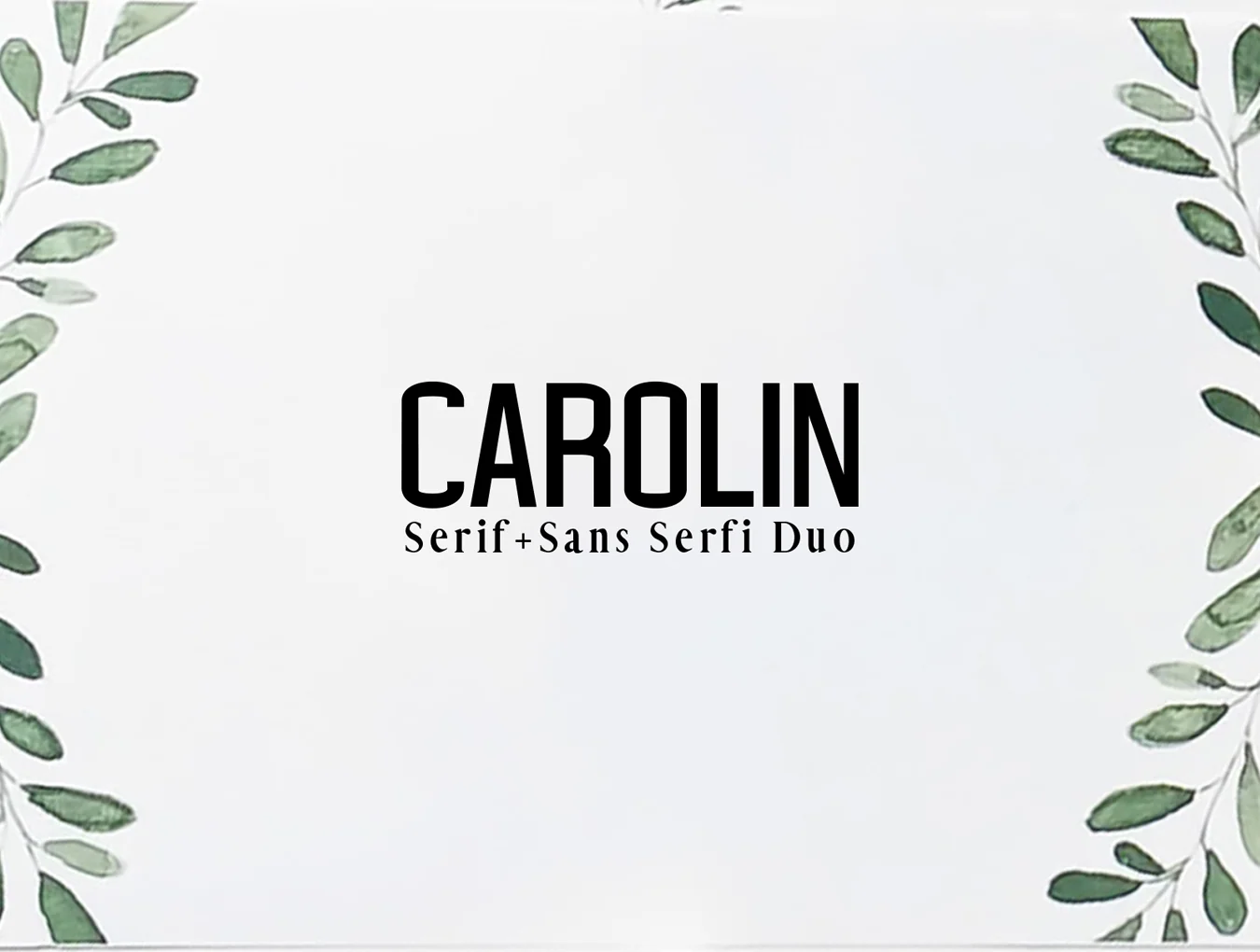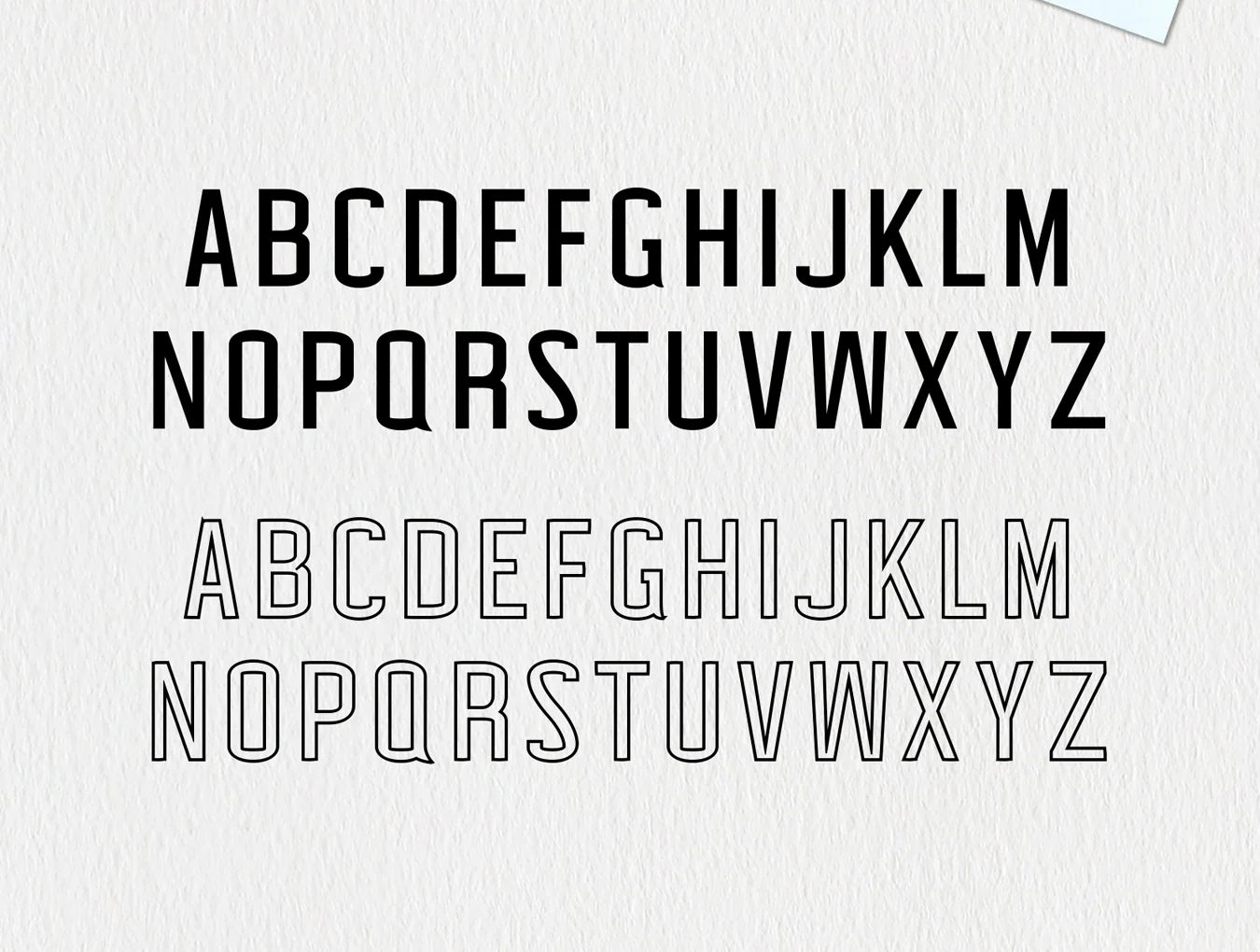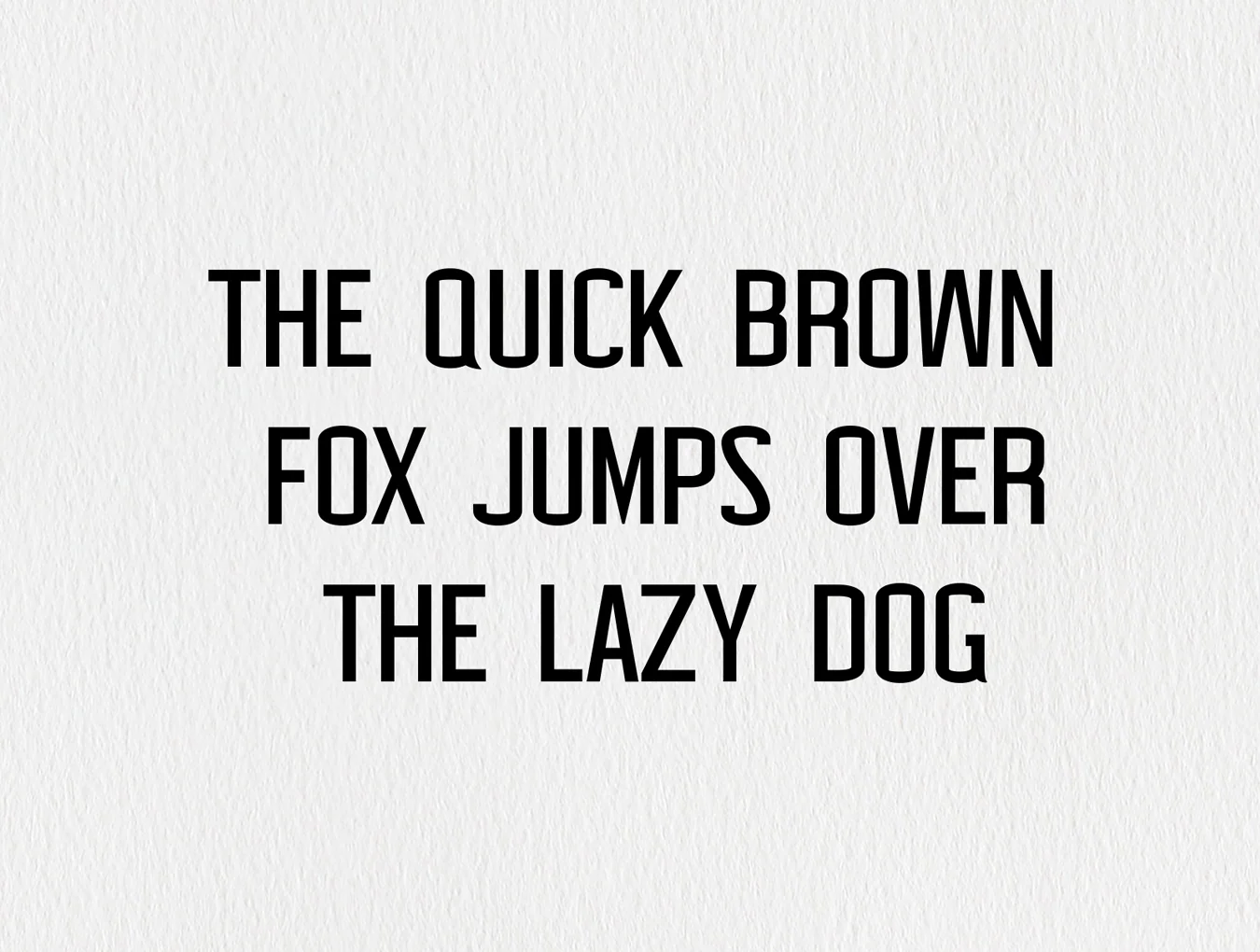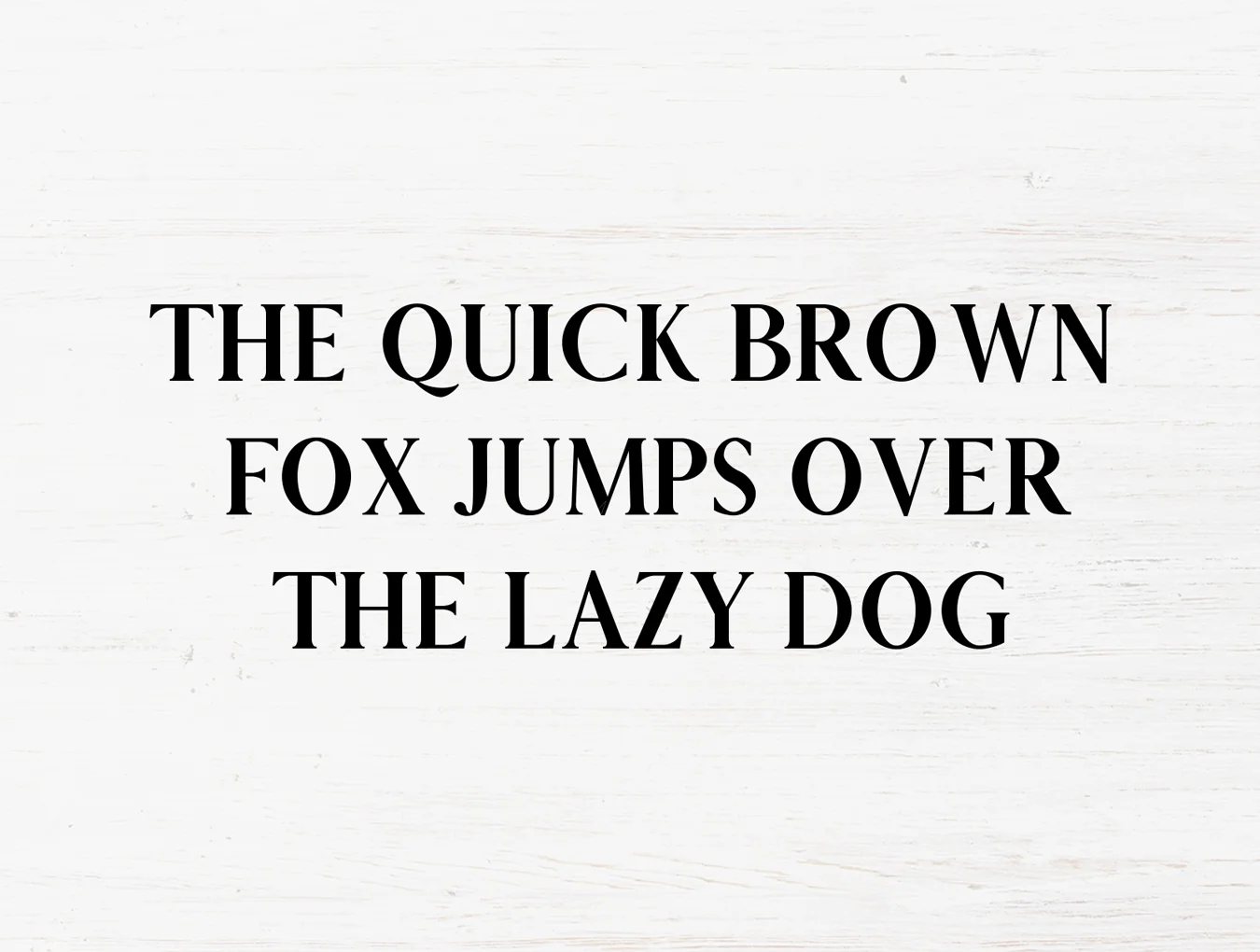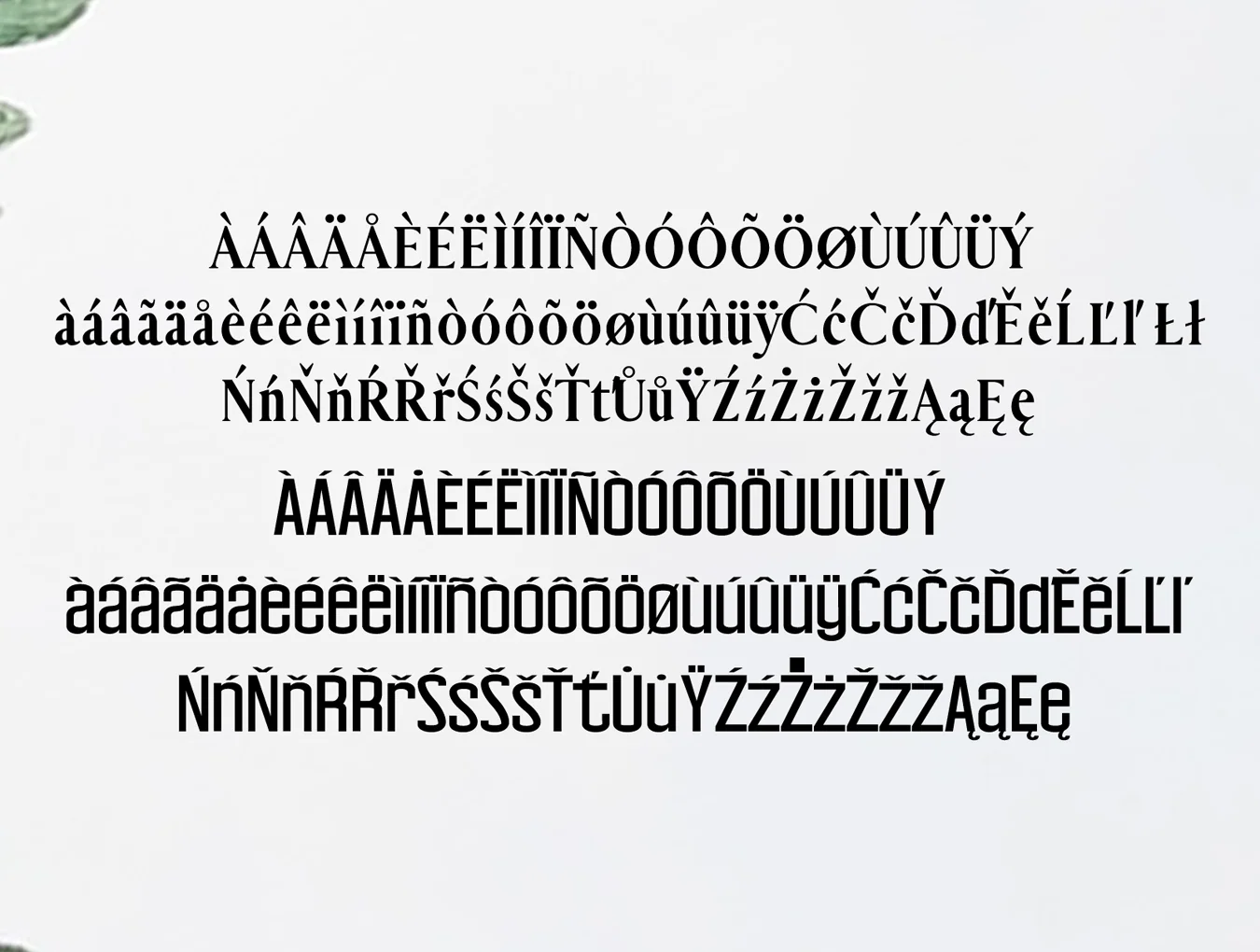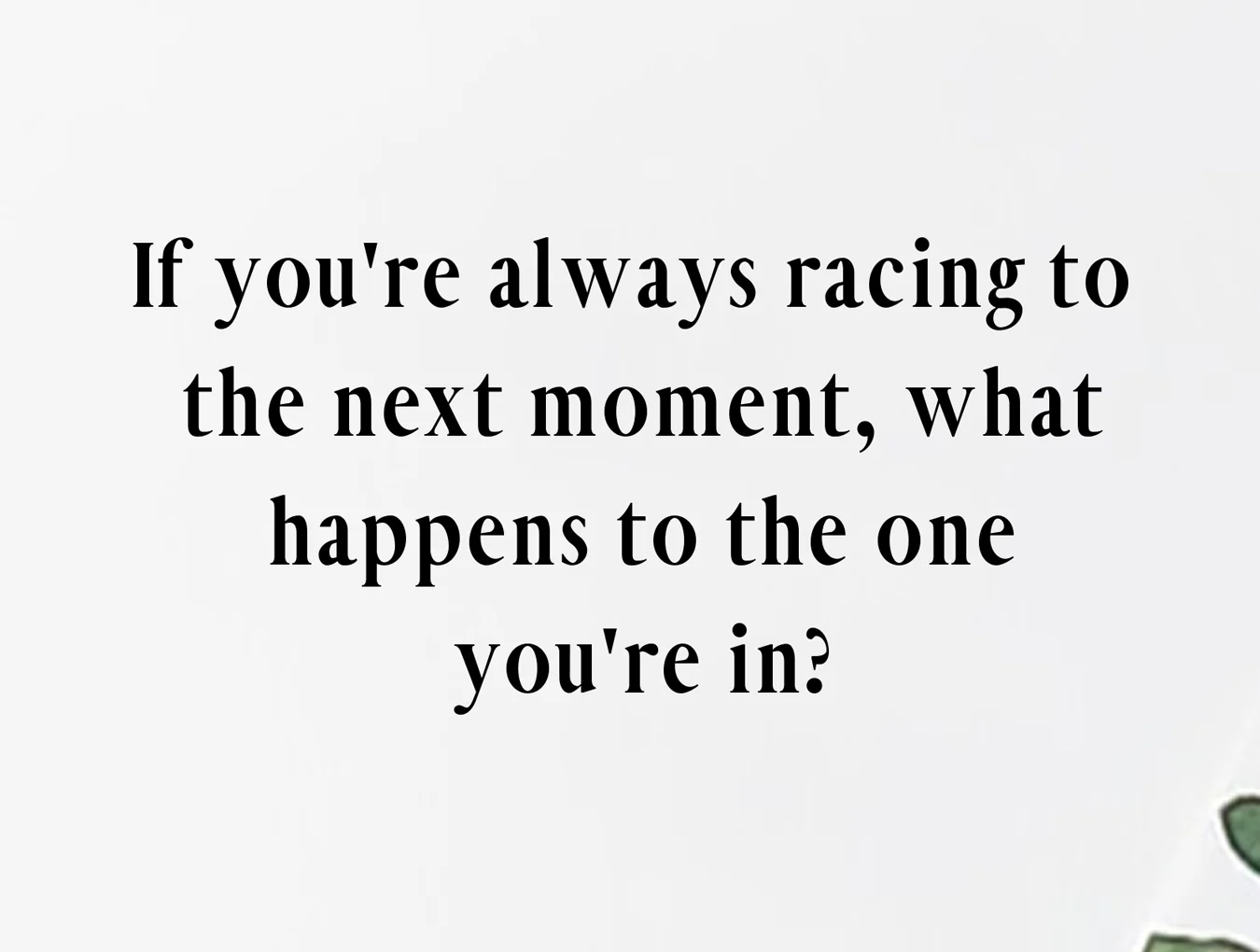
Carolin Duo Font Family
Carolin Sans and Sans Serif Duo: 5-Font Family Bundle
Serif and sans-serif font styles
Carolin with 255 glyphs and Hadeed with 278
Carolin styles: Regular, Light, Thin, and Outline
Carolin Serif + Sans Serif Duo Font Family Pack offers a distinctive type pairing for standout design work. Ideal for elegant logos, headings, websites, and branding, it shines in spaced all-caps for a refined style or in mixed case for a timeless feel. Includes OTF, TTF, WOFF, WOFF2, uppercase, lowercase, numbers, punctuation, and multilingual glyphs.